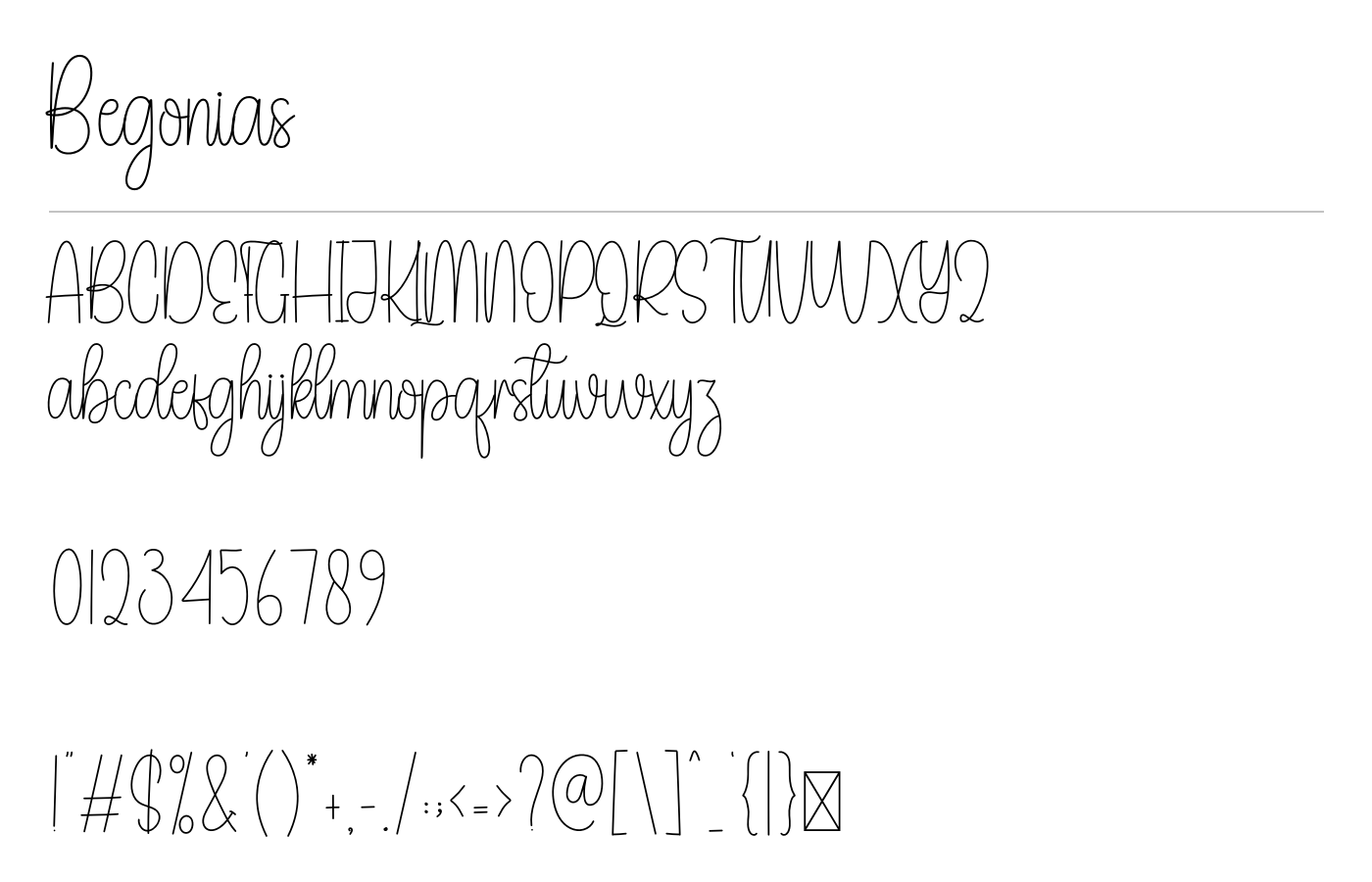
Begonias is a delicate, handwritten script font characterized by its tall, slender letterforms and light weight, giving it an airy and elegant feel. Its playful yet refined style makes it perfect for creative projects like invitations, greeting cards, and branding that seek a personal and whimsical touch. This font works best in headlines or short texts where its unique, expressive personality can shine without sacrificing readability.
Begonias Font